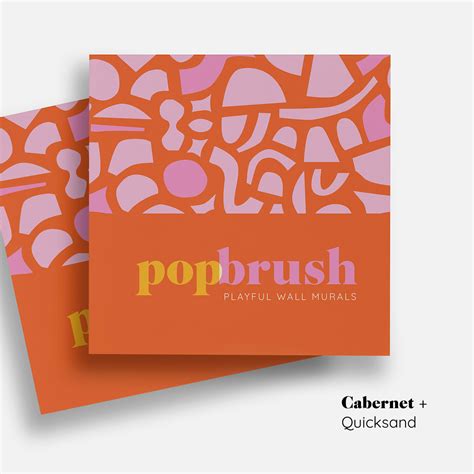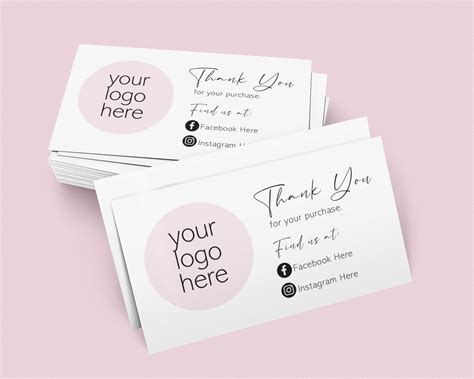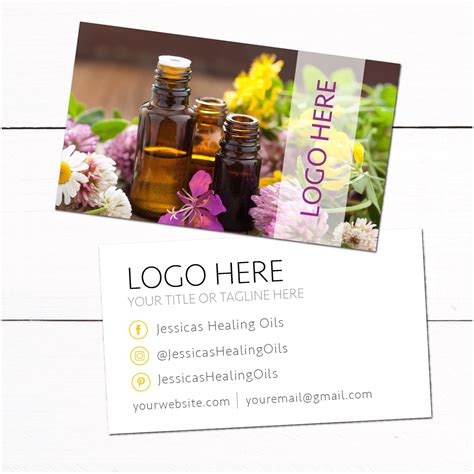
Choose the rightfield font for business card design is a critical determination that influences how your brand is perceived at a single glimpse. Your contact info, while functional, must subsist within a visual framework that pass your professional identity efficaciously. Whether you are aiming for modern minimalism or a traditional embodied aesthetic, the typeface serve as the voice of your printed material. By balancing readability with personality, you ensure that potential clients not only read your details easily but also retain a confident impression of your services. In this guide, we will explore the essential prescript for choosing, coupling, and sizing typography to make a card that stands out in a pile.
Understanding Typography Basics
Typography is more than just selecting a pretty style; it is about creating a hierarchy of information. On a small-scale surface like a standard 3.5 x 2-inch card, every character counts. You must see the weight, style, and contrast of your elect schoolbook to ensure it remains clear under diverse lighting conditions.
The Difference Between Serif and Sans-Serif
- Serif Case: These sport small shot at the last of letters. They communicate custom, authority, and reliability. Examples include Times New Roman or Garamond.
- Sans-Serif Baptistery: Characterize by clean, straight lines, these are mod, approachable, and extremely readable on screens and high-resolution mark. Democratic pick include Helvetica, Montserrat, and Open Sans.
- Script/Decorative Typeface: Use these sparingly, typically only for name or logos, as they can be hard to say at smaller sizes.
Best Practices for Business Card Typography
To accomplish a professional last, you must adhere to show design principle. Legibility should invariably direct precedence over aesthetical genius. If a prospect struggles to decipher your phone number or email reference, the card fails its principal object.
Hierarchy and Readability
Use size variance to guide the subscriber's eye. Your name should be the most prominent element, followed by your job title, and finally your contact details. Do not deluge the card with more than two distinguishable typeface; keeping it restrict to one or two house creates a cohesive, high-end look.
Formatting Your Data
💡 Billet: Ensure your font sizing for contact particular is at least 7pt or 8pt. Anything smaller peril get blurry during the printing process.
| Constituent | Recommended Size Range | Font Weight |
| Gens | 12pt - 16pt | Bold/Extra Bold |
| Job Title | 8pt - 10pt | Regular/Medium |
| Contact Info | 7pt - 9pt | Light/Regular |
Choosing a Font Based on Industry
Your industry dictates the tone of your ocular communicating. A law house and a originative graphical design bureau necessitate different optical languages.
Corporate and Legal Sectors
In industry where trust is paramount, classic serif typefaces or clear, geometrical sans-serifs work better. Stick to indifferent color and crisp, legible space to express constancy and competence.
Creative and Tech Sectors
For tech or originative roles, you have more exemption to experiment with modern, minimalist, or bold sans-serif fonts. These styles advise conception and forward-thinking. Utilise a unique presentation fount for your gens can aid establish a memorable marque touch.
Common Mistakes to Avoid
- Overweening Kerning: Too much infinite between letters create lyric fall apart, while too small makes them clop together and become illegible.
- Low Contrast: Avoid light grey text on a white background, as it will be nearly impossible to say.
- Overdrive Script Face: Ne'er set your contact particular in a book font. Save these for aesthetic idiom entirely.
💡 Billet: Always convert your fonts to scheme or bender before sending your design file to a printer to ensure the schoolbook remain incisively as you intended.
Create an efficacious occupation card is an exercise in control and clarity. By centre on legible font sizes, proper hierarchy, and choosing a typeface that array with your specific industry, you can make a tool that leaves a lasting positive feeling. Always remember that the ultimate goal of your line card is to create it as mere as possible for others to hit you, turning a minor part of cardstock into a powerful gateway for new professional opportunities. Consistency in your composition choice across all your printed materials will go a long way in show a recognisable and professional individuality for your business.